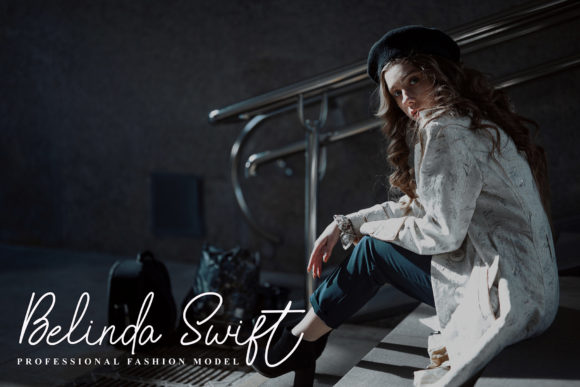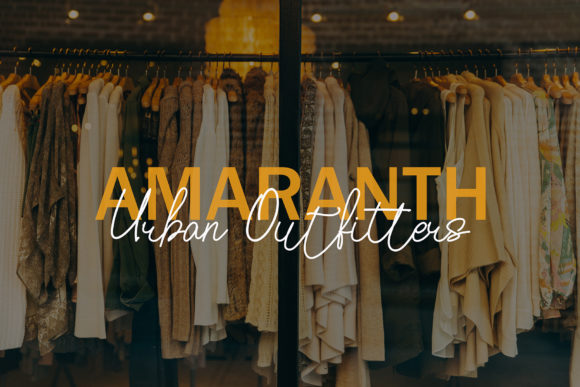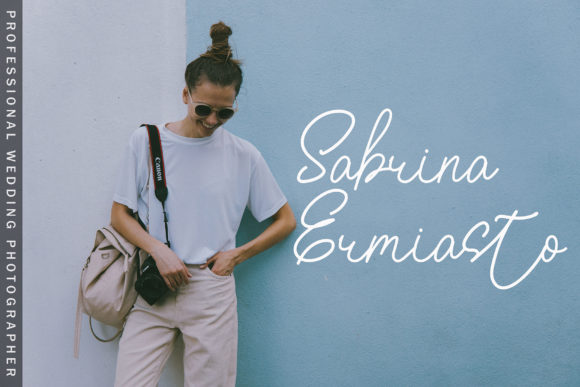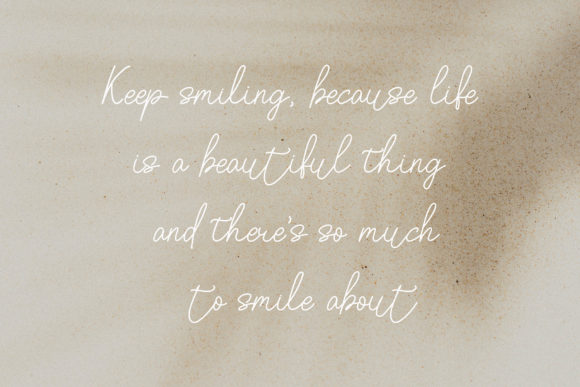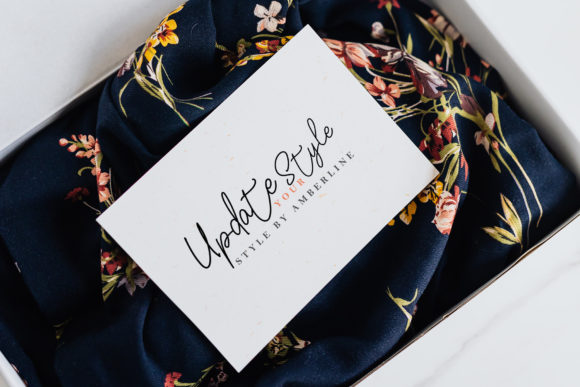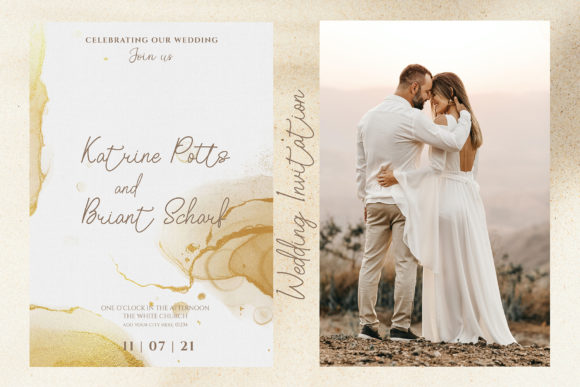
Introduction to Pettrina Font
Imagine you’re brainstorming ideas for your upcoming wedding, and you stumble upon the perfect design for your save-the-date cards. The elegant script, the delicate curves, and the beautiful texture all come together to create a stunning visual that perfectly captures the essence of your special day. This is what Pettrina Font can do for your creative projects – it’s a game-changer.
As a designer, you’re always on the lookout for high-quality design resources that can elevate your work and make it stand out from the crowd. Pettrina Font is a free download that’s sure to become a valuable addition to your design toolkit. With its transparent background and delicate script, it’s perfect for a wide range of projects, from logos and branding to photography and special events.
Key Features of Pettrina Font
- High-quality design resource ideal for creative projects and personal use.
- Unique, elegant script font featuring a transparent background and seamless texture.
- Perfect for adding a touch of sophistication to wedding invitations, greeting cards, and other design projects.
- Supports multiple languages and is highly legible at various font sizes and resolutions.
- High-resolution design ideal for use in digital and print media, including web design, social media graphics, and more.
Honest Review: Pettrina Font
I recently had the chance to work with the Pettrina Font, and I must say it’s been a great addition to my design resource library. I downloaded it for free, and I was impressed by the high quality of the font.
Here are some things that work well with the Pettrina Font: ✨
- High-quality design: The font looks beautiful and is perfect for any creative project.
- Transparent background: This makes it easy to use with any background image or color.
- Wide range of styles: The font comes in a variety of styles, from casual to formal, making it versatile for different design needs.
However, there are a few limitations to keep in mind: ⚠️
- Not suitable for small text: Due to its elegant design, the font may not be the best choice for small text sizes.
- May require customization: Depending on your design needs, you may need to customize the font to fit your project’s requirements.
Overall, I’m impressed with the Pettrina Font, and I would definitely recommend it to fellow designers looking for a high-quality, creative font for their next project.
Tips for Getting the Most Out of Pettrina Font
Use Pettrina Font for creative projects that require a high-quality, elegant design. You can also use it for social media graphics, blog posts, or marketing materials. To get the most out of it, experiment with different font sizes, colors, and styles to create visually appealing designs.
Pettrina Font is a versatile design resource that can be used for various purposes, including:
- Blog posts and articles
- Marketing materials and flyers
Alternatives to Pettrina Font
Similar to Pettrina Font, Great Vibes has a playful and friendly feel, but it is more versatile and can be used for a wider range of designs.
Carolyna Pro is a high-quality, elegant font that is suitable for luxury branding, wedding invitations, and other high-end design projects. It features a transparent background and a free download option for designers.
Is the Pettrina Font suitable for large-scale printing or digital applications?
Yes, the Pettrina Font is designed to be scalable and suitable for both large-scale printing and digital applications. Its high-quality design ensures that it will render well on various devices and in different contexts, making it a great choice for creative projects that require a professional touch.